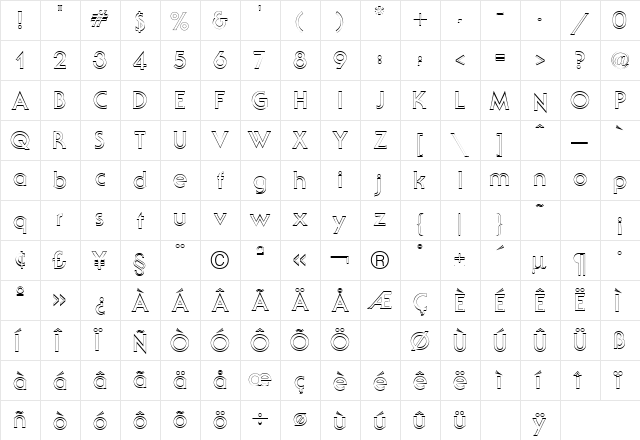
Serif Gothic Bold Outline Regular
Design Context for Serif Gothic Bold Outline Typeface
Serif Gothic Bold Outline is built around its visual character rather than neutral utility — its distinctive forms are designed to make an impression at display sizes. The heavy weight commands attention and anchors typographic hierarchies.
Font Pairing: Pair with a clean neutral sans-serif for body copy to let Serif Gothic Bold Outline's character lead without overwhelming the composition.
Pro Tip: Use Serif Gothic Bold Outline exclusively at display sizes — it was designed to be seen, not read at length. Let a neutral companion handle body copy.